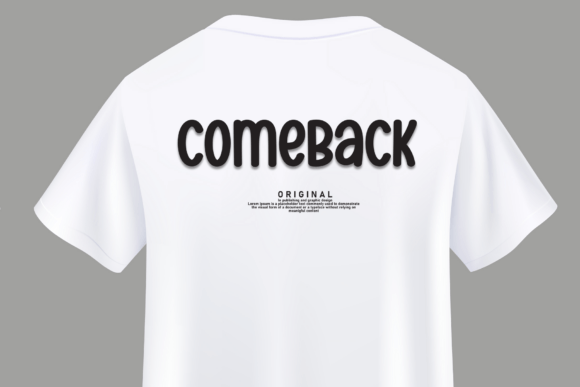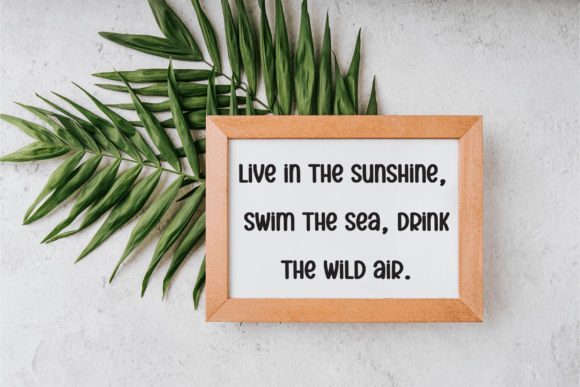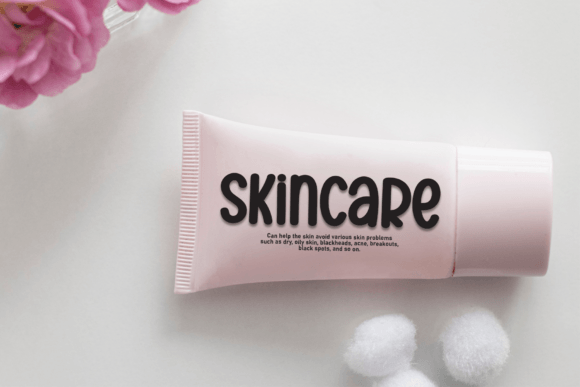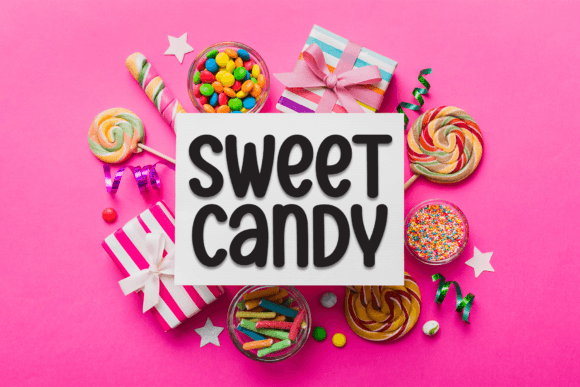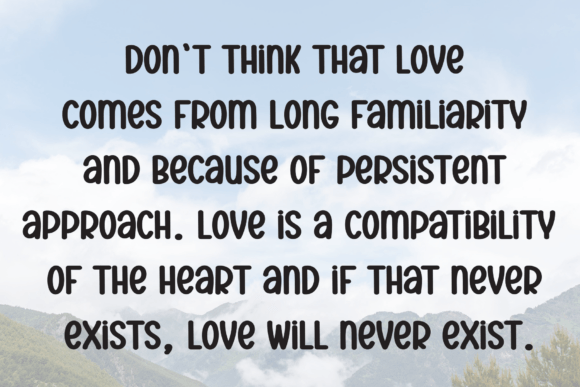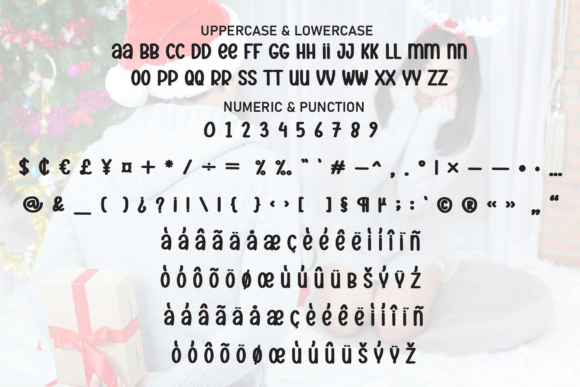
Introduction to Merry Moments Font
Remember the moment you stumbled upon that perfect font for your design project, and everything just fell into place? For designers, finding the right font can be a game-changer. It’s that instant spark of creativity that makes all the difference between a good design and a great one. And that’s exactly what the Merry Moments Font brings to the table – a charming, handcrafted display font that’s sure to elevate any creative project.
With its high-spirited curves and strokes, the Merry Moments Font is the perfect addition to any design resource. Whether you’re working on a wedding invitation, celebratory card, or any other project that requires a touch of whimsy, this font is sure to bring a smile to your face and a dash of fun to your composition.
Key Features of Merry Moments Font
- High-quality design resource ideal for creative projects and holiday-themed artwork.
- Includes a range of festive and playful characters, perfect for adding a touch of whimsy to your design.
- Designed with a clear and readable font style, making it suitable for use in a variety of contexts, from digital to print.
- Perfect for designers, artists, and crafters looking for a unique and eye-catching design element for their next creative project.
Honest Review: Merry Moments Font
I recently had the chance to work with the Merry Moments Font, and I have to say it’s been a delightful addition to my design resource library. The font is perfect for creating festive and playful designs for any creative project.
What works well: ✨ The Merry Moments Font has a high-quality design that’s both elegant and whimsical, making it ideal for a variety of applications. The transparent background allows for seamless integration with any background image or color. The font also includes a range of characters, including uppercase and lowercase letters, numbers, and punctuation.
Here are some of the key features of the Merry Moments Font:
- High-quality design with elegant and whimsical feel
- Includes a range of characters, including uppercase and lowercase letters, numbers, and punctuation
Limitations: ⚠️ While the Merry Moments Font is a great resource, it’s not ideal for formal or professional designs. The font’s playful and festive feel may not be suitable for corporate or business applications.
Merry Moments Font
Tips for Getting the Most Out of Merry Moments Font
For a transparent background, use the font on a light-colored background or add a subtle texture to give it depth. Experiment with different font sizes and styles to create a visually appealing design.
The Merry Moments Font is perfect for use in creative projects such as:
- Invitations and party decorations
- Social media graphics and advertising
- Wedding stationery and gifts
- Children’s party decorations and accessories